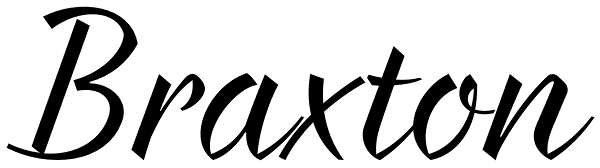
Braxton
Braxton - brush flavored script font family includes 5 unique font weights. The font family is characterized by excellent legibility in both - web & print design areas, well-finished calligraphic designs, optimized kerning etc. Braxton is most...